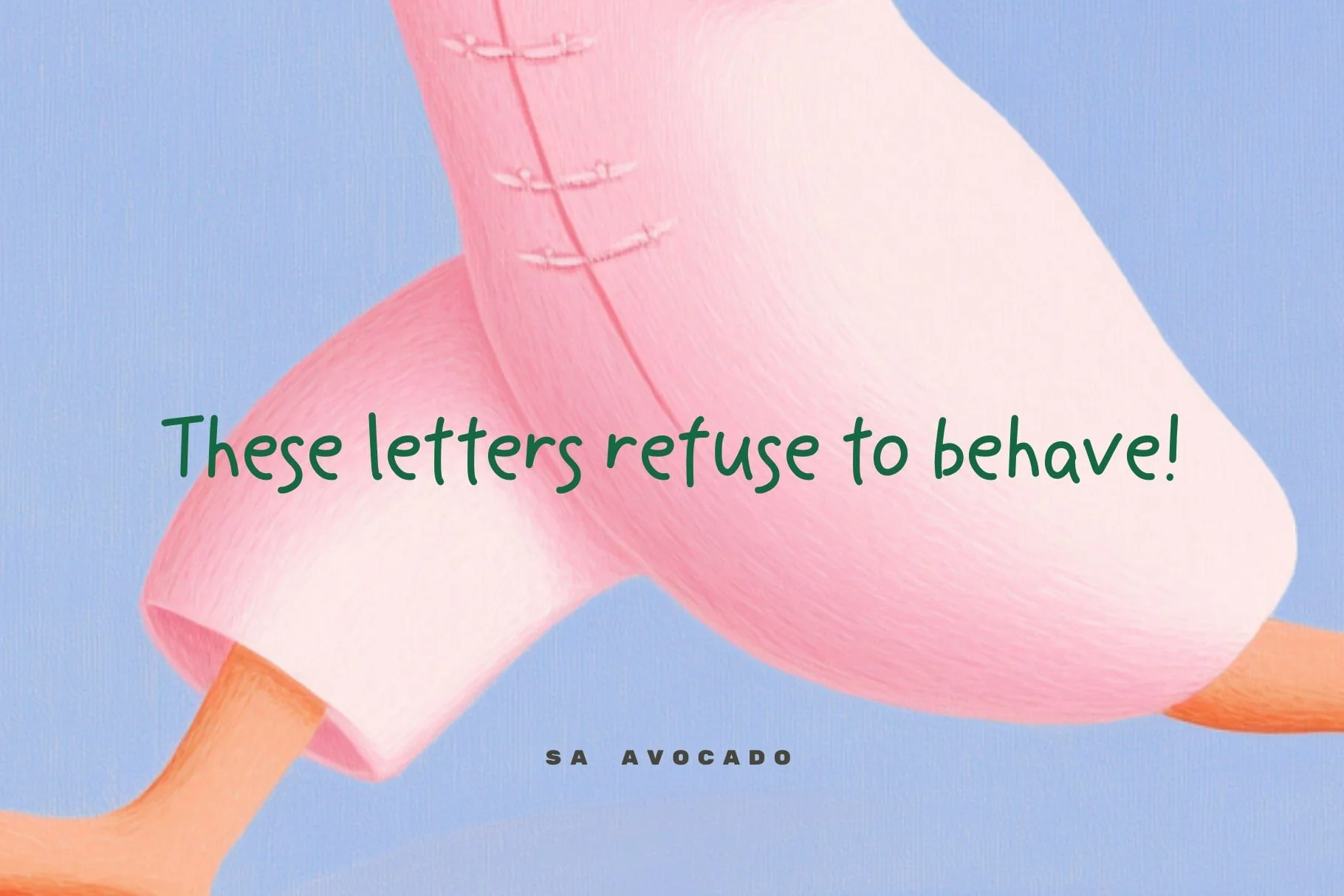
Kids Font Bundle – 4 Hand-Drawn Fonts Bursting with Joy
Imagine the squeak of new markers, the swirl of sidewalk chalk, and the giggles of a classroom art session—that’s the feeling baked into this bundle. ​Four quirky typefaces, each drawn from genuine kids’ doodles and polished for professional use, give posters, birthday invites, worksheets, and product labels an instant dose of fun.
What’s Inside
• SA Playful Scribbles – big, bouncy letters that shout “let’s play!”
• SA Kids Doodle – perfectly imperfect lines packed with personality
• SA Kids Curly – curly strokes that dance off the baseline
• SA Avocado – smooth, rounded sans for easy reading
Why You’ll Love It
• Drawn by kids, refined by pros – authentic charm with pro-grade spacing
• Instant smiles – every letter feels like recess on the page